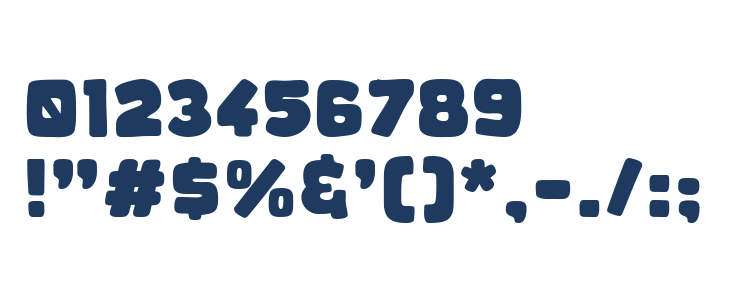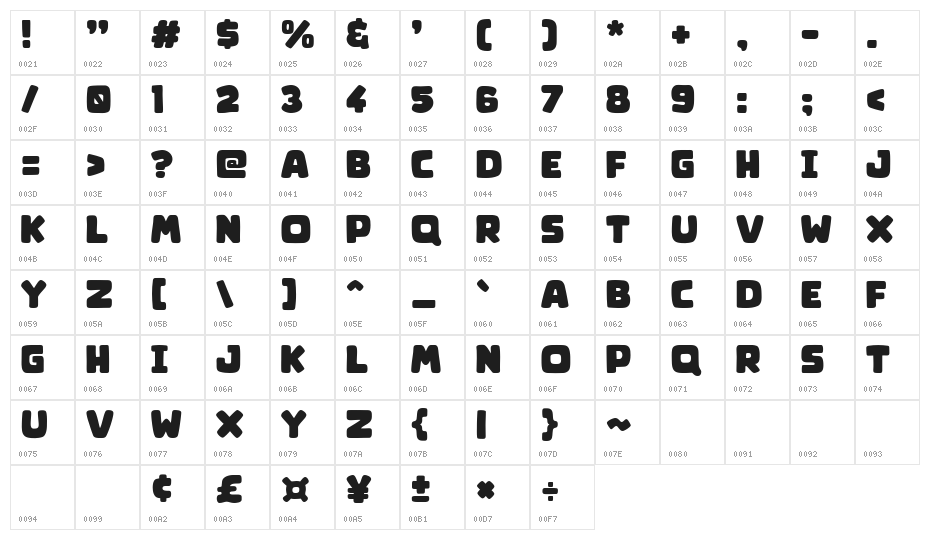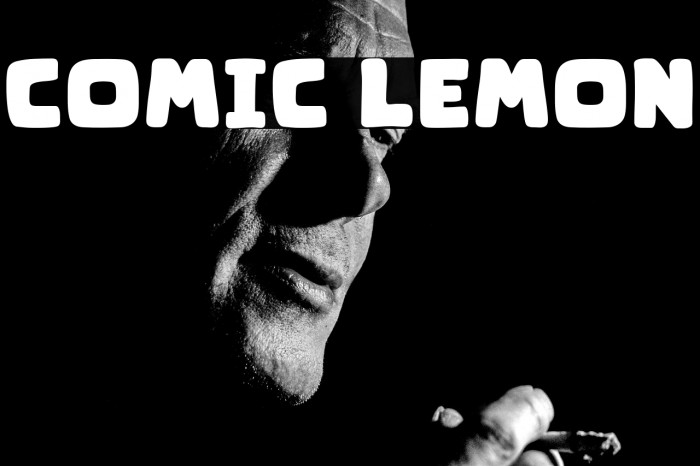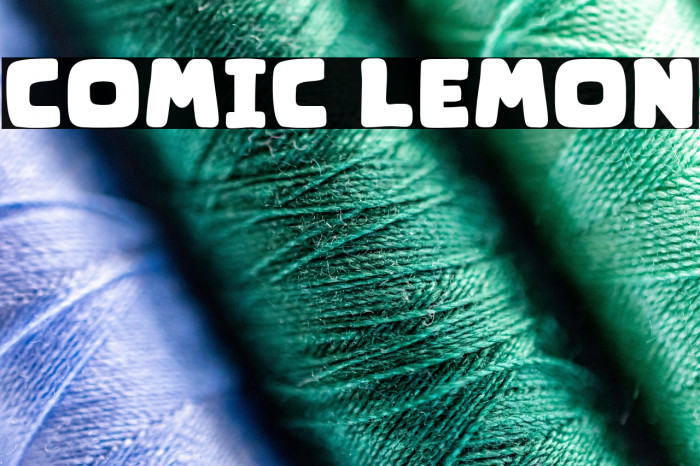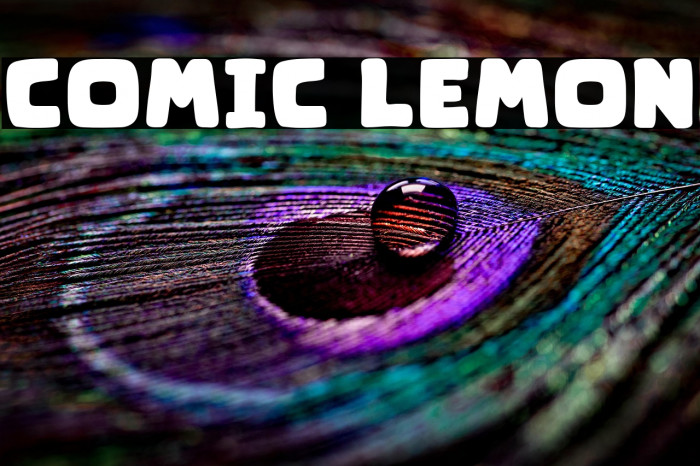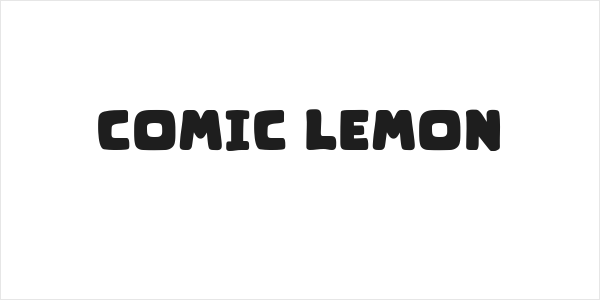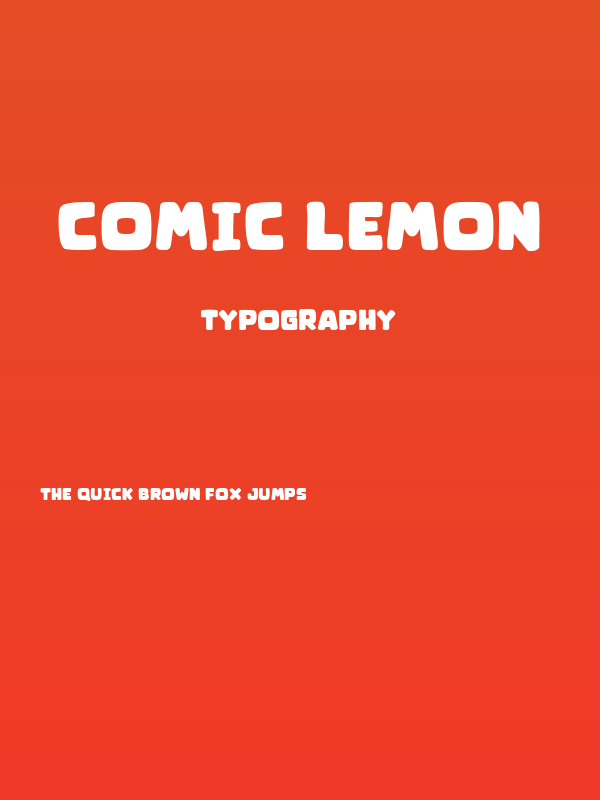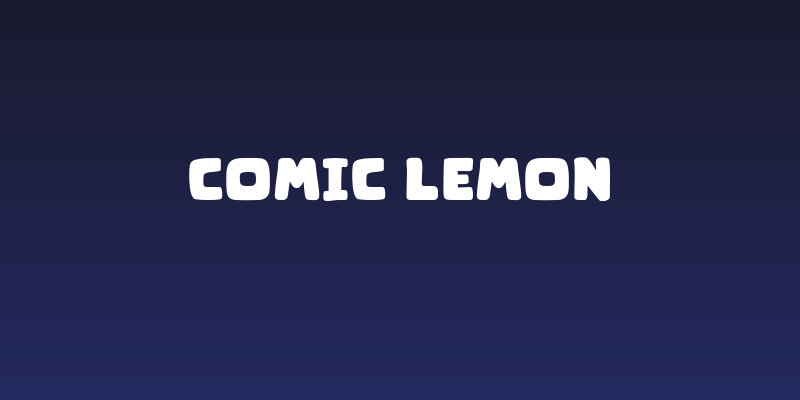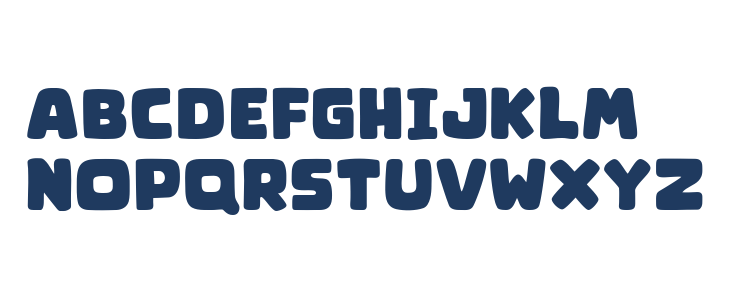
Comic Lemon Font
Comic Lemon Description
This playful and bold typeface features rounded, thick strokes that give it a friendly and approachable appearance. The characters are uniformly wide, with a slightly exaggerated, cartoonish style that makes it stand out. The font maintains a consistent weight throughout, providing a cohesive look across all letters and numbers. Its whimsical nature is perfect for projects that require a fun and informal touch, such as children's books, comic strips, or playful branding. The spacing between characters is normal, ensuring readability while maintaining its distinctive style.
| Overall Style | Playful, Cartoonish |
| Use Case | Headlines, Logos, Informal Text |
| Proposed Projects | Ideal for children's books, comic strips, playful branding, and informal designs. |